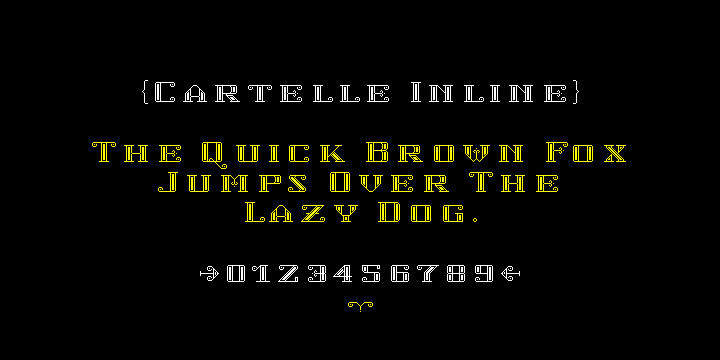
Cartelle Inline Font Free Download delivers distinctive typography that combines vintage poster elegance with contemporary functionality for eye-catching design applications. This commercial font requires purchase for business use, but you can download it for free for testing purposes to evaluate its unique dimensional characteristics in your creative projects.
Cartelle Inline Font demonstrates exceptional versatility across numerous design applications including vintage poster design, retro advertising campaigns, craft brewery branding, entertainment venue marketing, theatrical promotions, artisanal product packaging, vintage fashion labels, and nostalgic event communications. Its distinctive character makes it particularly effective for projects requiring vintage authenticity while maintaining contemporary appeal, ensuring your designs convey classic charm and artistic sophistication across both digital platforms and specialty print materials.
What makes Cartelle Inline Font truly exciting is its masterful recreation of classic inline typography traditions enhanced with modern design precision that creates compelling vintage communications. The font features meticulously crafted letterforms that incorporate traditional inline detailing and elegant proportions reminiscent of vintage poster art while maintaining excellent readability and professional application. Its distinctive character construction draws inspiration from early 20th-century advertising design and theatrical typography, creating text that feels both historically authentic and contemporarily relevant. The font's optimized spacing and dimensional character relationships ensure superior performance across various vintage applications while preserving the characteristic elegance that defines its classic personality.
Cartelle Inline Font offers a comprehensive type family designed to support diverse vintage and artistic design requirements. The family typically includes regular, medium, and bold weights, complemented by extensive inline variations that provide complete flexibility for dimensional typography compositions. Many versions feature extended character sets with vintage ornaments, decorative elements, and specialized glyphs that enhance authentic classic aesthetic applications.
The Cartelle Inline Font Free Download represents outstanding value for designers working on vintage-inspired and entertainment-focused projects across multiple sectors. Whether developing craft brewery identity, creating theatrical promotional materials, designing vintage fashion communications, or producing retro advertising content, this font delivers consistent authenticity and memorable vintage appeal. Its classic characteristics make it particularly effective for industries including craft beverages, entertainment venues, vintage retail, and artistic events sectors seeking to communicate heritage charm and creative distinction.
For maximum effectiveness, Cartelle Inline Font combines beautifully with vintage color palettes and classic design elements that reinforce its nostalgic message. Its elegant presence excels in headline applications while maintaining excellent performance in artistic promotional contexts. The font's vintage sophistication and dimensional appeal make it an essential tool for creating authentic communications that resonate with audiences appreciating classic design and artistic craftsmanship.